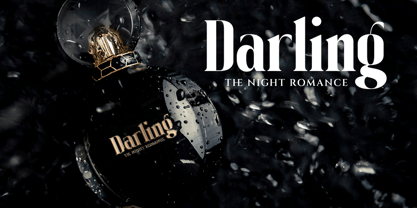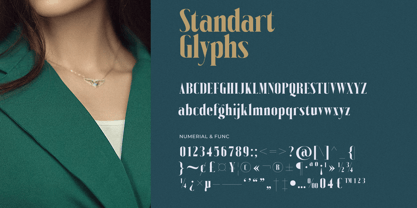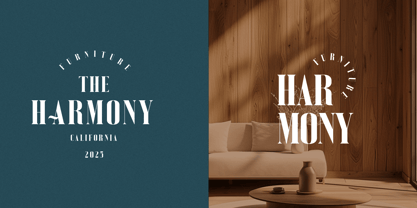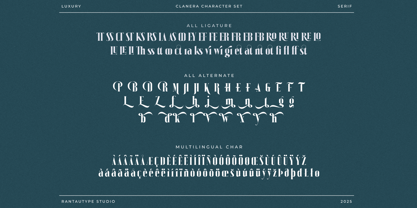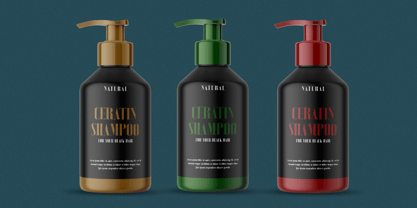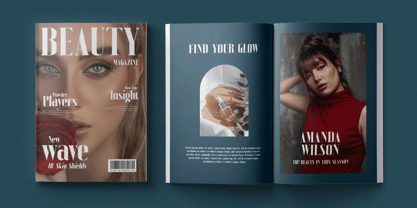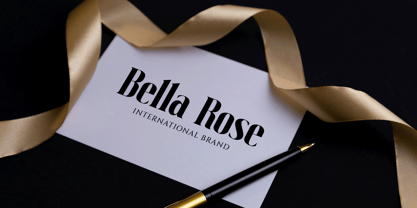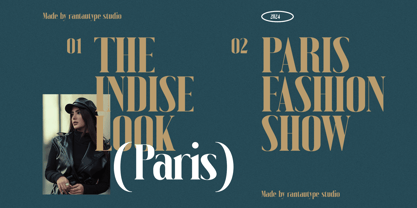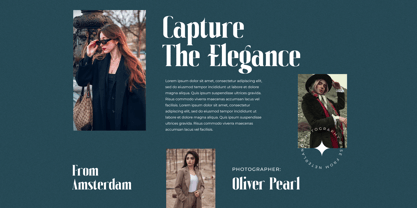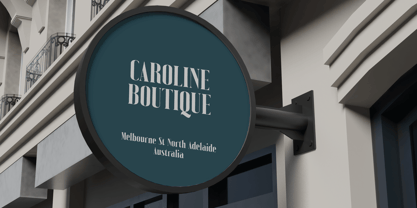
Clanera
The Clanera Font Family was designed by Yudi Pratama Chandra and published by RantauType. Clanera contains 2 styles and family package options. More about this family
Clanera is bold minimalist and luxury serif font. Clanera come with beautiful ligature and alternate to make your design project stand out! Clanera is a perfectly choice for any creative endeavor, chic, lifestyle design such as logotype, advertisements, watermark on photography, stationery, branding project, display and magazine, invitation, corporate brand, product design, label, business project and many other project with elegant touch.
• Standart Glyphs
• Numberial and Functional
• Ligature and alternate
Fonts include multilingual support for: Afrikaans, Albanian, Basque, Bemba, Bena, Breton, Catalan, Chiga, Cornish, Danish, Dutch, English, Estonian, Filipino, Finnish, French, Galician, German, Icelandic, Indonesian, Irish, Italian, Kinyarwanda, Luxembourgish, North, Norwegian, Portuguese, Romansh, Rombo, Rundi, Scottish, Gaelic, Sena, Shambala, Shona, Soga, Somali, Spanish, Swahili, Swedish, Swiss, German.